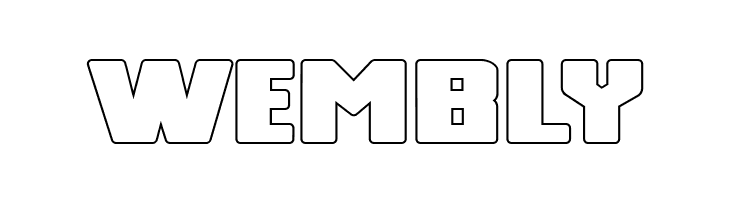
Rainy Snow Font
- Font: Rainy Snow
A modern, outline sans-serif font with geometric influences and consistent line thickness.
( Fonts by Patrick Broderick )